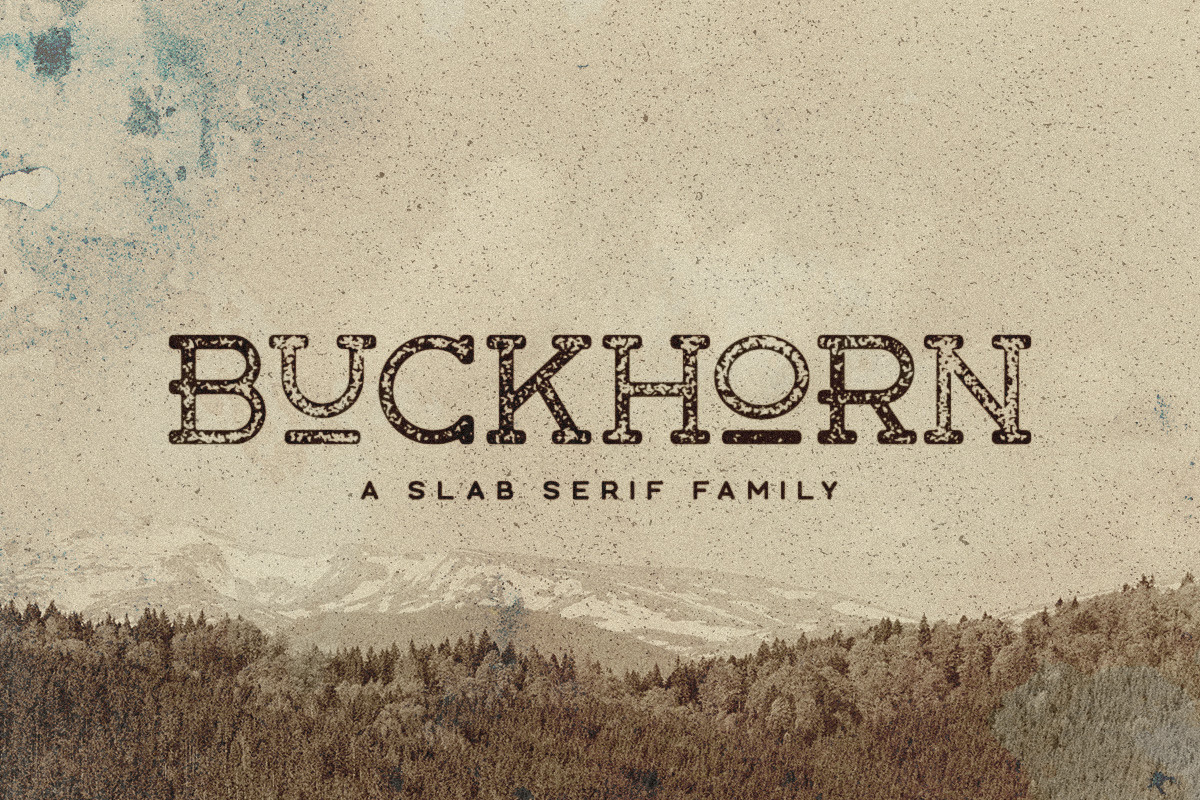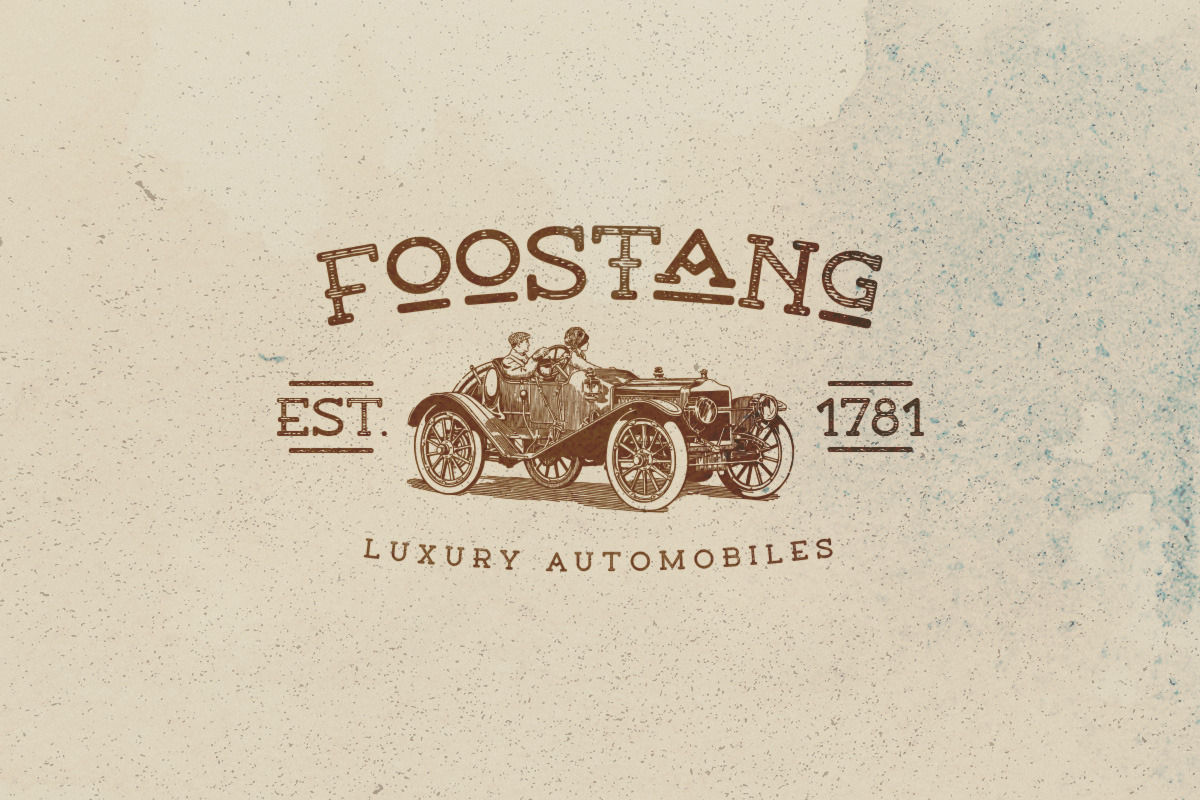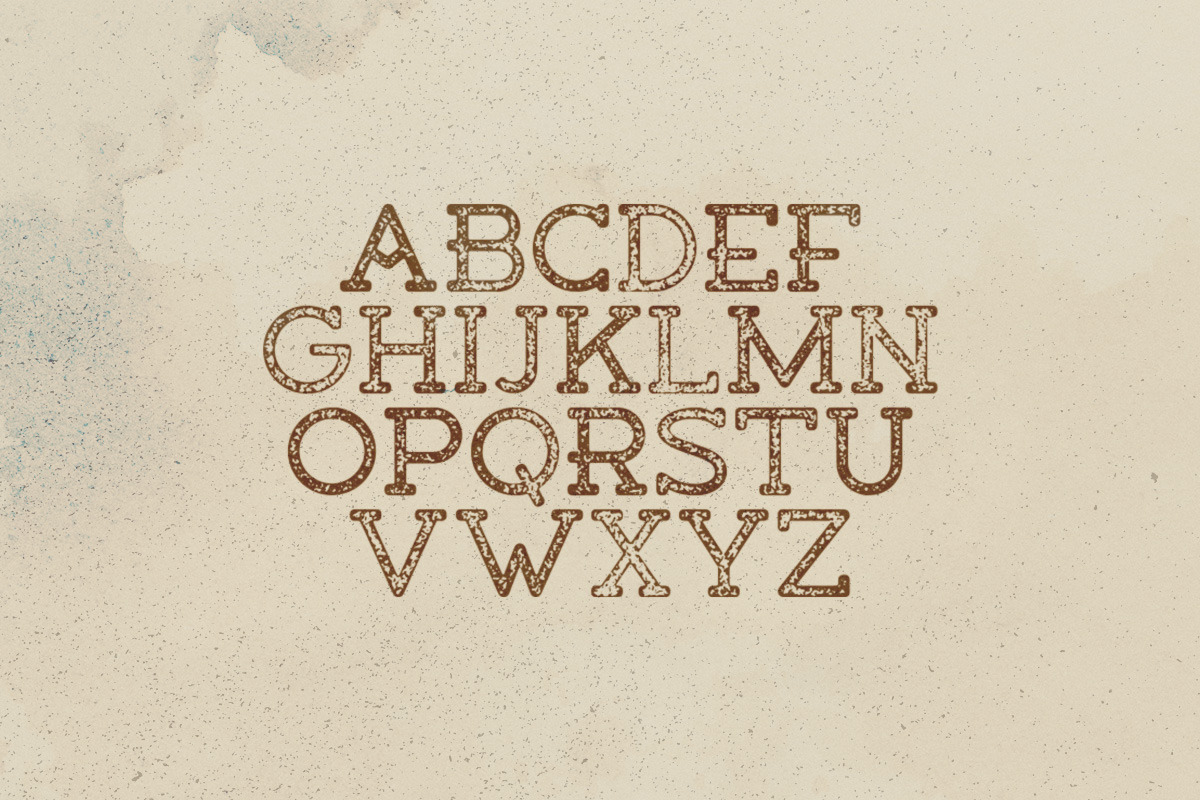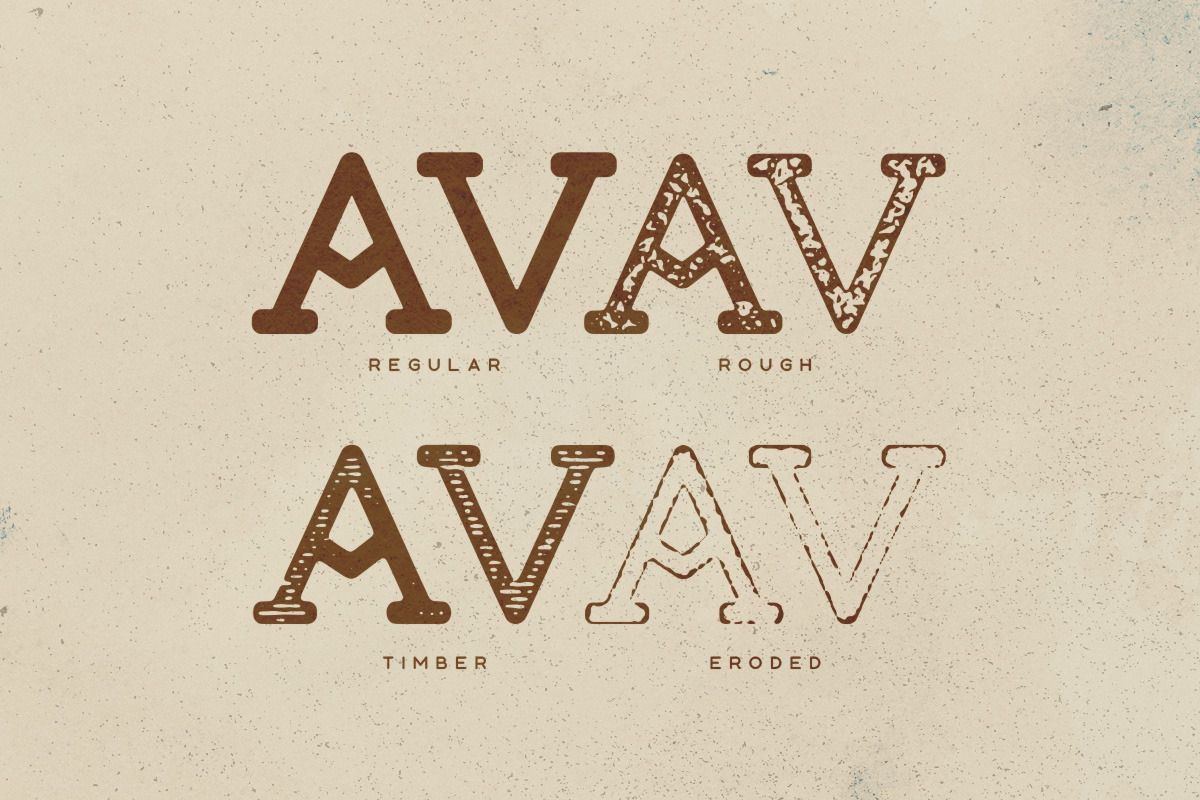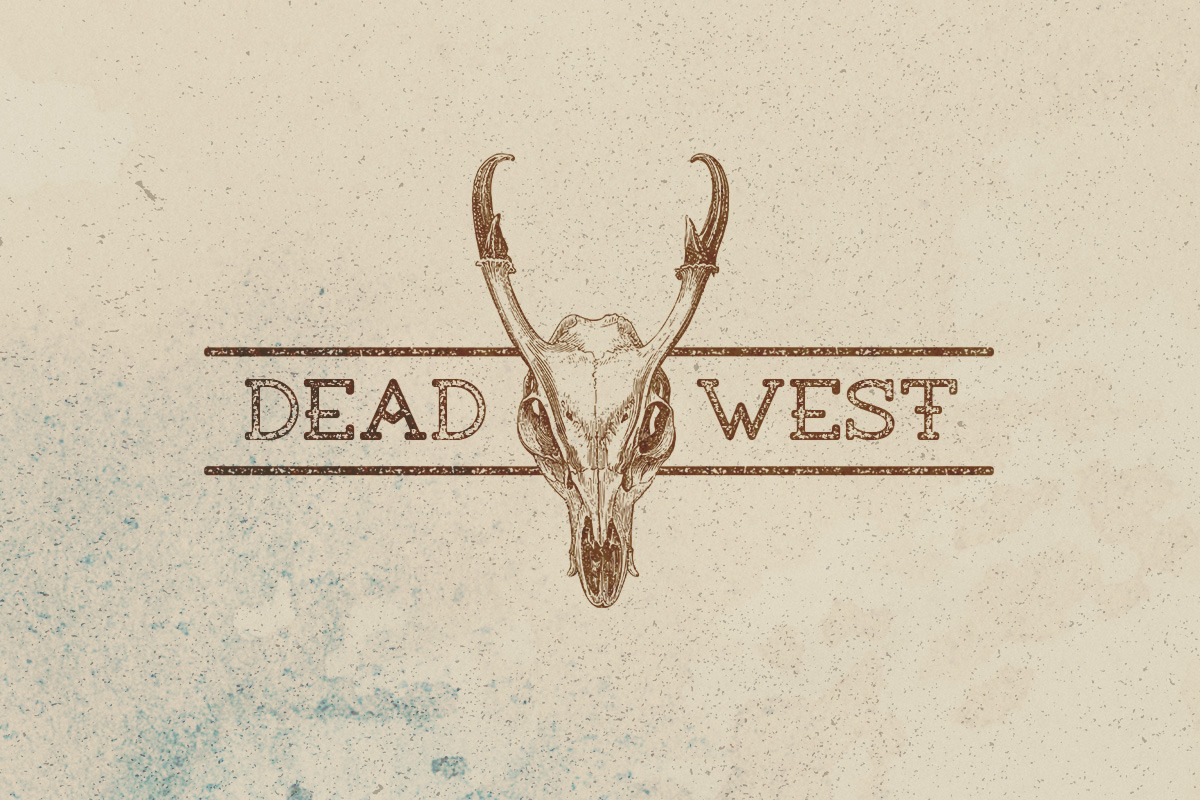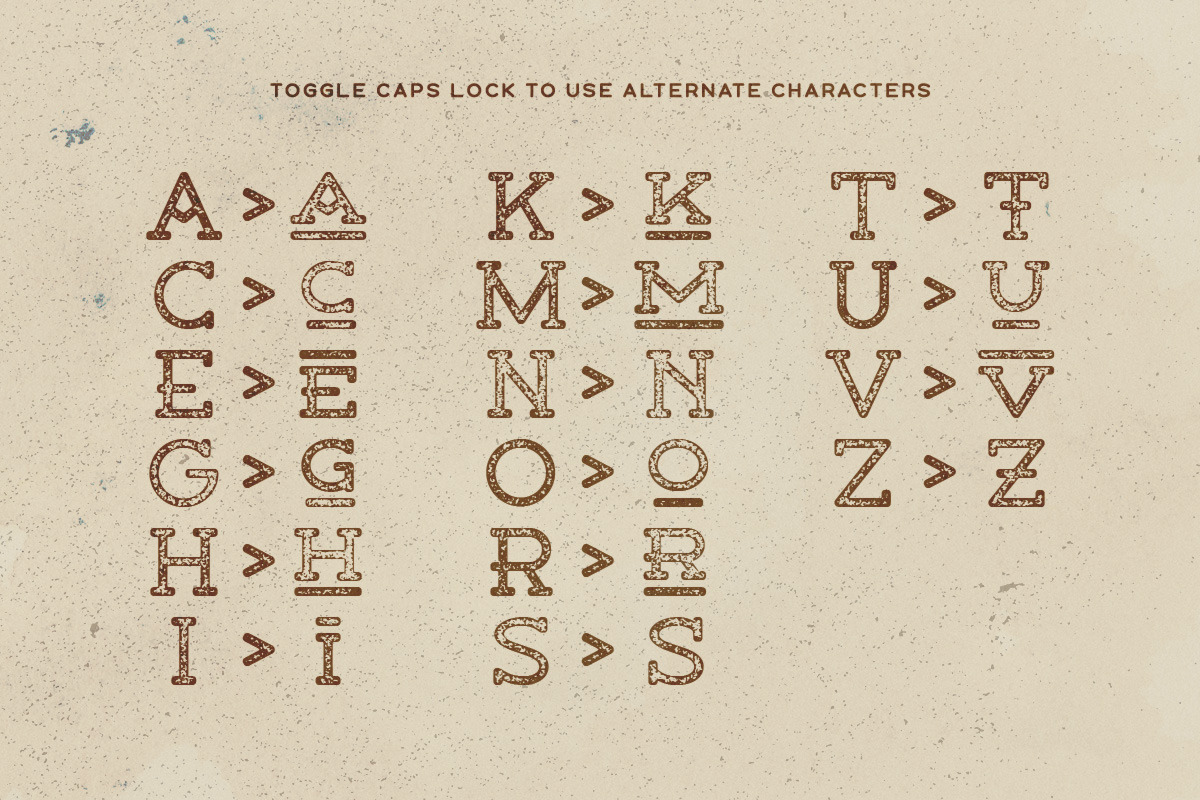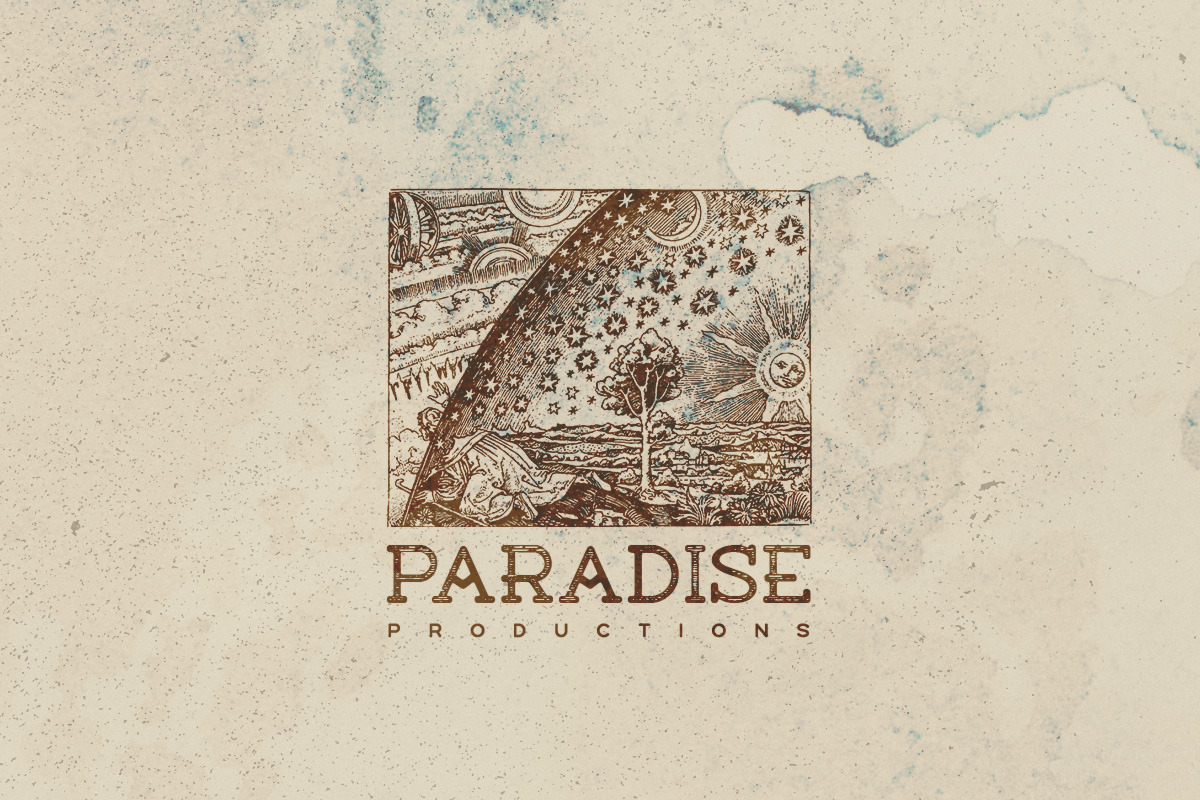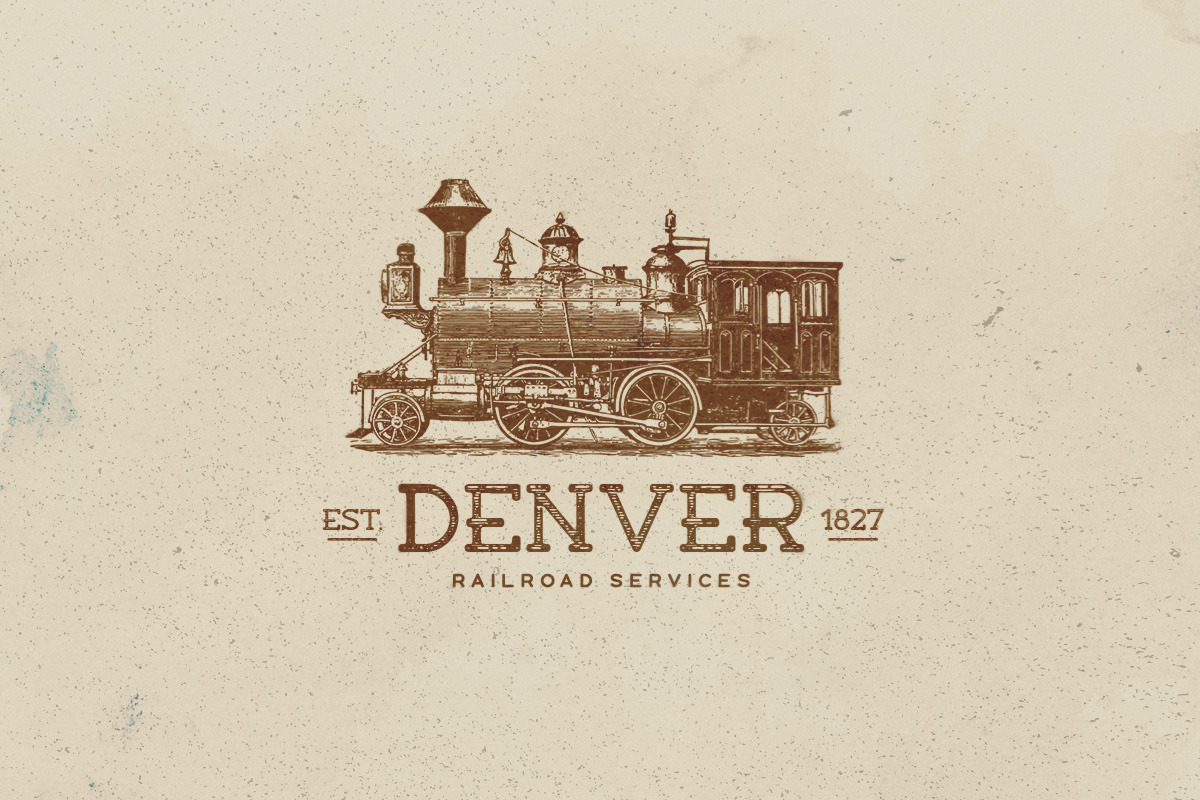
Buckhorn Typeface
Buckhorn is a slab serif font with four style options. The font also includes a ton of alternate letters which can be toggled via Caps Lock.